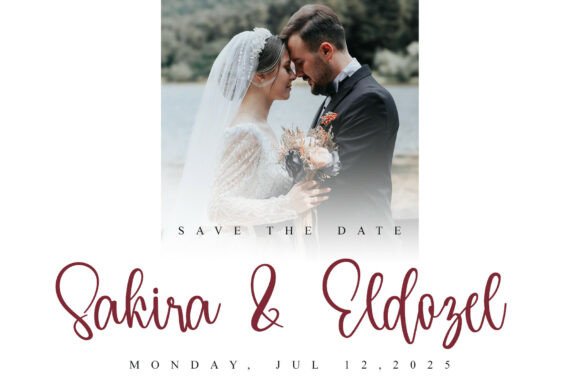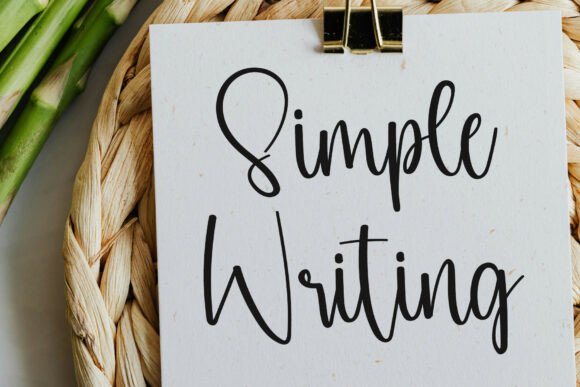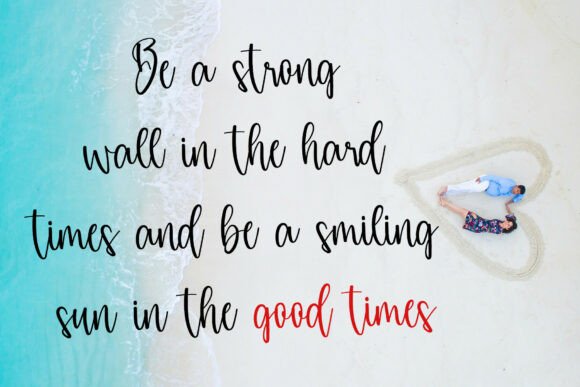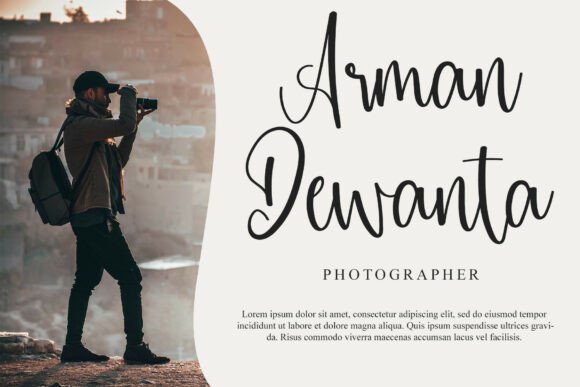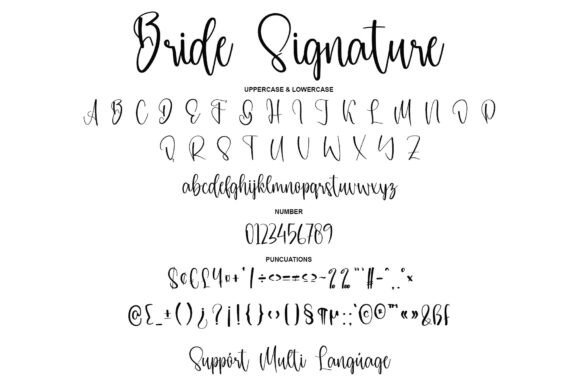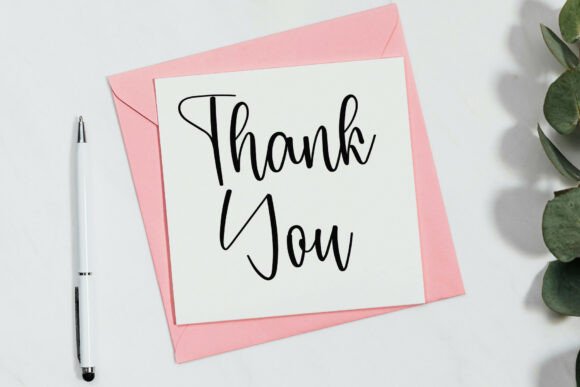
The Perfect Script for Your Special Projects
As a designer, have you ever found yourself staring at a blank page, waiting for the perfect font to bring your vision to life? It’s a moment we’ve all been in – the blank page staring back at us, the cursor blinking impatiently, and the pressure to create something truly special. For those moments, we turn to fonts that can elevate our designs and make them truly unforgettable.
Enter the Bride Signature Font, a stunning handwritten font that exudes a contemporary atmosphere and impeccable form. Inspired by timeless classic calligraphy, this font is designed to enhance the beauty of your projects and leave a lasting impression. With its balanced and varied style, the Bride Signature Font is a valuable addition to any designer’s toolkit, perfect for weddings, invitations, and other special occasions where a touch of elegance is needed.
Bride Signature Font Key Features
- Font Style: Elegant, cursive script font designed for wedding stationery, invitations, and other special occasions.
- Unique Characteristics: Includes ligatures, swashes, and flourishes to add a touch of elegance and sophistication to wedding designs.
- Language Support: Supports Latin-based languages, including English, Spanish, French, and many others, making it a versatile choice for international weddings.
Bride Signature Font Review
As a designer, I was excited to dive into the “Bride Signature Font” and see what it had to offer. Overall, I was pleased with the result.
The font is beautifully designed with elegant script lettering that adds a touch of sophistication to any wedding invitation or stationery. The curves and flourishes are well-balanced, creating a cohesive look that’s perfect for a special day. ✨ I love how the font adapts to different line heights and spacing, making it easy to work with.
- Beautifully designed script lettering
- Well-balanced curves and flourishes
- Adapts to different line heights and spacing
However, there are a few limitations that might be worth considering. The font doesn’t come with a full character set, which means you might need to add some extra characters or fonts to get the desired look. Additionally, some users might find the font a bit too ornate or over-the-top, depending on their personal taste. ⚠️
Overall, I would recommend the “Bride Signature Font” for anyone looking for a beautiful, elegant script font for their wedding stationery or invitations. While it has some limitations, the results are well worth the effort. With a little creativity and planning, you can create stunning designs that will make your special day truly unforgettable.
The Bride Signature Font is perfect for wedding invitations, wedding programs, and other wedding stationery. It can also be used for watermarks, social media graphics, and other design elements.
For the most beautiful results, use the font in combination with a high-quality image or texture.